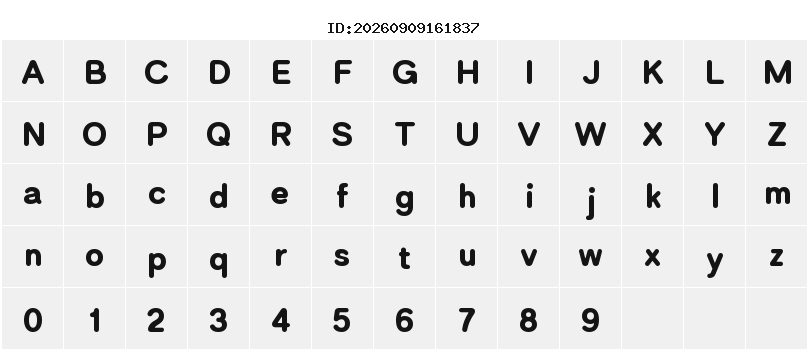
字语圆体 Preview
• Font Name: 字语圆体
• Full Font Name: 字语圆体
• PostScript Name: ZiYuYuanTi
• Designer: 天津卓漫科技有限公司
• Manufacturer: 字语字库
About 字语圆体.ttf
字语圆体.ttf is a modern, elegant sans-serif font designed for ultimate readability and visual harmony. Perfect for branding, headlines, web design, and print materials.